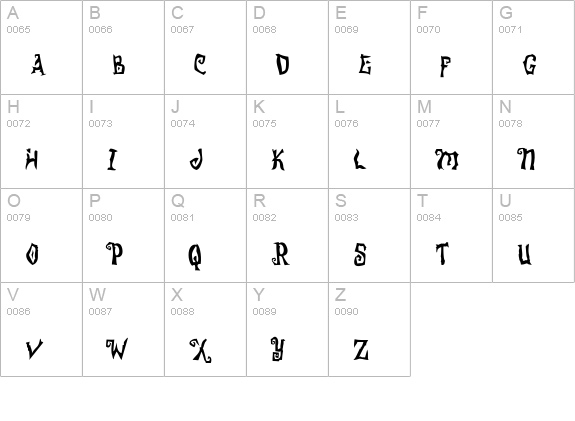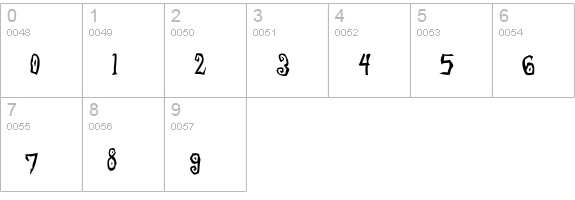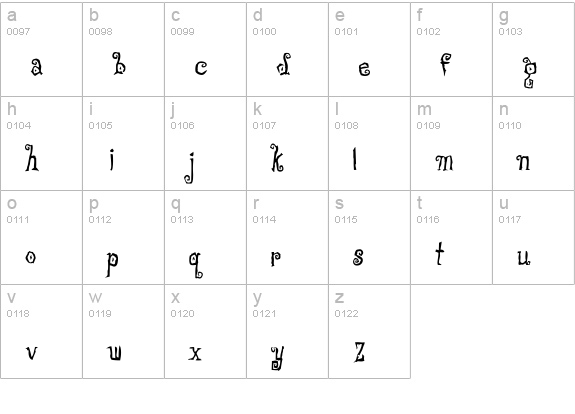
Freakshow-RealScaryA font is a spooky and macabre typeface designed to send shivers down your spine. With its jagged edges and eerie appearance, this font is perfect for adding a terrifying touch to your designs. The twisted and distorted letters create a chilling atmosphere that is sure to captivate and unsettle viewers. The best part? Freakshow-RealScaryA font is available for free download at FontsMarket.com. Embrace the darkness and bring a haunting element to your projects with this bone-chilling font. Let your creativity run wild as you use Freakshow-RealScaryA to add a touch of horror to your designs. Download it now and unleash the frightful potential of this unique font.